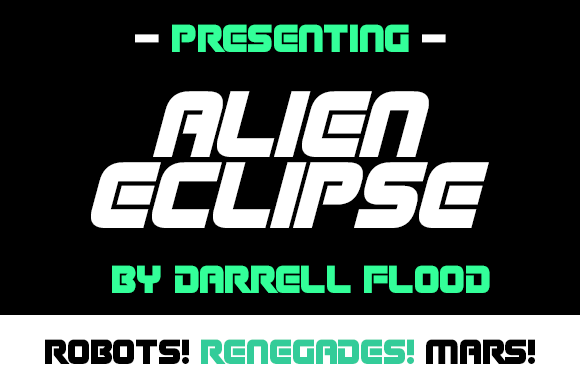
Dive into a cosmos of boundless creativity with Alien Eclipse, a futuristic display font that shatters the boundaries of conventional typography. Adorn your designs with its captivating curves and mesmerizing cut-outs, propelling your projects to the forefront of innovation.
With Alien Eclipse, you hold the key to unlocking a universe of possibilities. Picture sleek logos that slice through the digital realm, leaving a trail of awe-inspiring elegance. Craft website headers that radiate an otherworldly charm, drawing visitors into an immersive experience. Unleash your imagination and forge captivating social media graphics that leap off the screen, demanding attention like a supernova.
Alien Eclipse is not merely a font; it's a gateway to a realm of limitless expression. Its intricate details dance before the eyes, captivating audiences with a symphony of visual delight. Each letterform is a meticulously crafted masterpiece, honed to perfection to deliver a striking visual impact that leaves a lasting impression.
Step into the future with Alien Eclipse and elevate your designs to celestial heights. Embrace the allure of the cosmos and embark on a creative odyssey that knows no bounds. Let Alien Eclipse illuminate your path to typographic greatness.
Created by the visionary minds at Dadiomouse, Alien Eclipse is more than just a font; it's an artistic masterpiece, a testament to the transformative power of digital artistry. Whether you're a seasoned designer or a budding creative, Alien Eclipse will empower you to unleash your inner genius and craft designs that shimmer with brilliance.